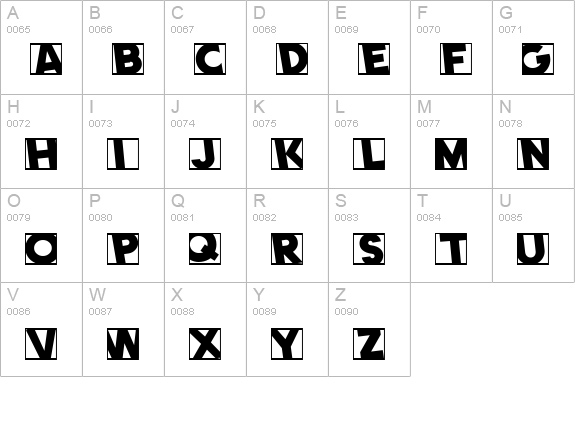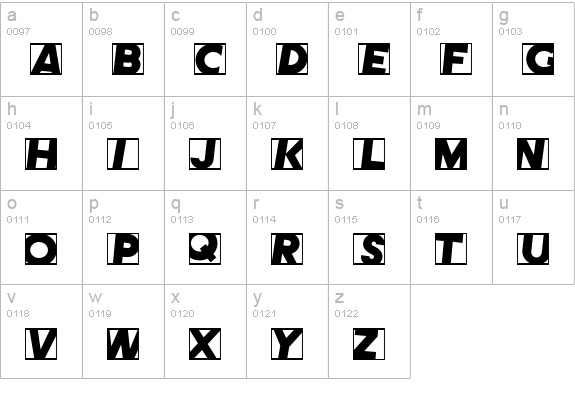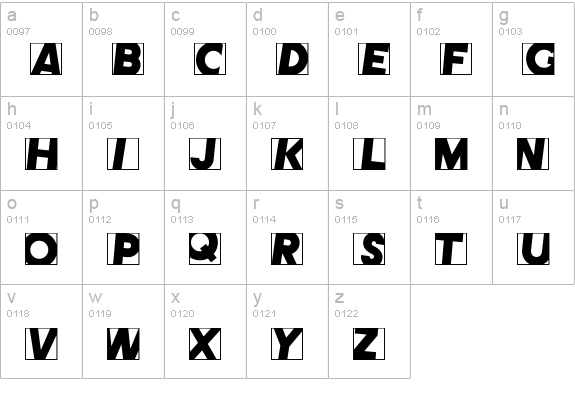
Comet Positive Font Details
Comet Positive font is a modern and stylish typeface that exudes elegance and sophistication. With its sleek lines and unique design, this font is perfect for adding a touch of class to any project. Whether you're designing a logo, creating a poster, or crafting a website, Comet Positive font will make your text stand out and captivate your audience. The best part? Comet Positive font is completely free to download at FontsMarket.com! This means you can enhance your designs with this beautiful font without having to spend a dime. Don't miss out on the opportunity to elevate your projects with Comet Positive font - download it today and let your creativity soar.